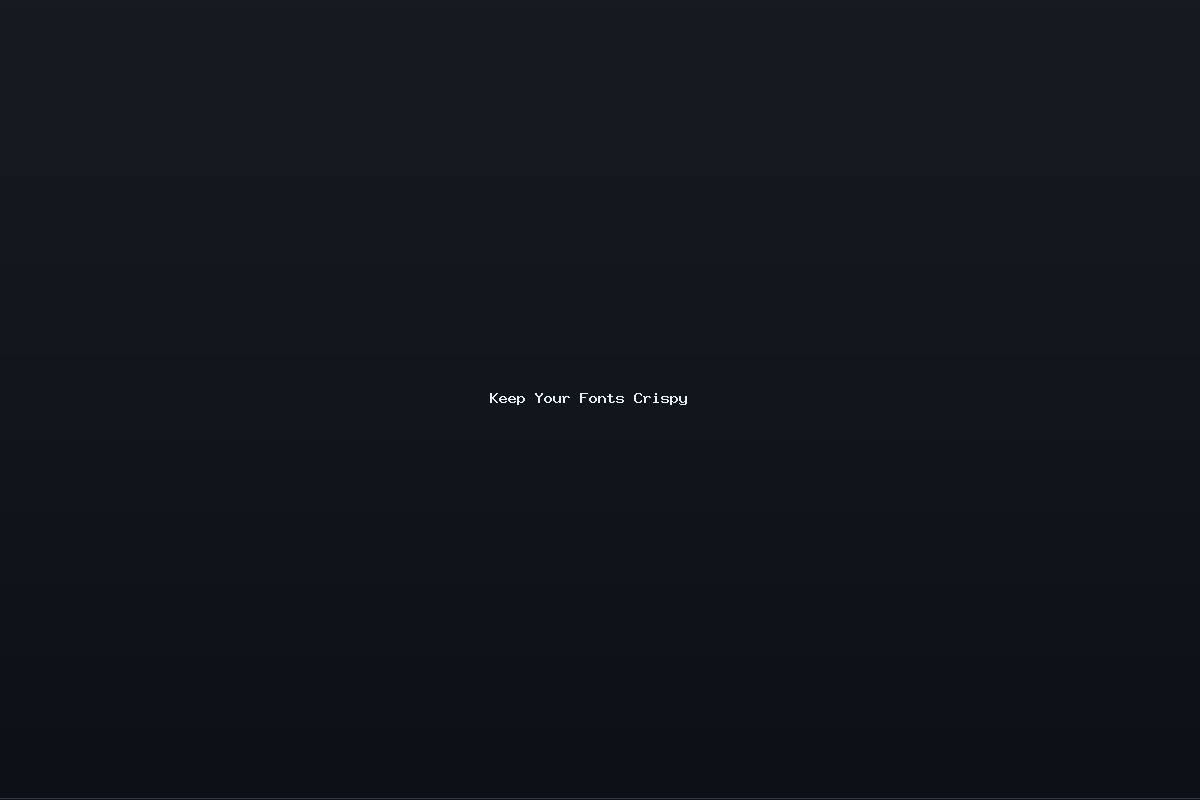
Typography and Readability on Your Site
When a visitor lands on a page, the first thing they notice is how the words appear on the screen. If the fonts are small, blurred, or lose definition against the background, the entire browsing experience takes a hit. On a 13‑inch laptop with a 800 × 600 resolution, for example, a font size that looks fine on a larger display can shrink to a point where the letters no longer form clean shapes. This is especially problematic for customers with vision issues, which can lead to frustration and ultimately discourage a sale.
One common symptom of poor typography is when text seems to “fade” or “feather.” This usually occurs when the font weight is too light or the rendering engine struggles to anti‑alias on low‑resolution screens. Browsers like Internet Explorer 5.0, which many users still run on older hardware, often handle text rendering poorly. Even if a font is sharp on a modern browser, it may appear jagged or smudged on an older engine. The bottom two lines of a page can be especially vulnerable, as they sit near the edge where anti‑aliasing is weakest. In these areas the letters may lose their distinct edges, turning a crisp “T” into a blur that looks more like a “t.”
Contrast plays a pivotal role in readability. A dark background with light text works well, but if the text color is too close to the background hue, the words may slip into the background and become invisible. The same happens when using earth tones such as taupe, grey, or brown on a black background. The subtle differences between these shades can be swallowed by the darkness, making the text feel washed out. Switching the background of the footer to a light slate or charcoal grey can create a subtle yet powerful contrast that brings the text back to life without sacrificing the overall aesthetic.
To solve these typography issues, start with a base font size of at least 14 px for body text and 16 px for headings. Use a font family that offers clear, round characters and a moderate weight, like Arial, Helvetica, or Georgia. Avoid thin or decorative fonts for the main copy. When you set a larger line height - roughly 1.5 times the font size - you give readers breathing room, which helps the eye track each line. Adding a subtle text shadow or a slight border around low‑contrast text can also help the letters stand out, especially on older browsers.
Finally, test your pages on multiple devices and browsers. Use responsive design techniques to ensure the text scales correctly on phones, tablets, and laptops. By paying close attention to these details, you’ll give every visitor a clean, crisp reading experience, which is the first step toward building trust and driving conversions.
Using a “slate” background for content areas, as seen on the item description pages, is an excellent example of this principle. The grey tone offers just enough contrast to make the text sharp while remaining understated enough not to clash with the product imagery. Replicating this look across the news, company, and info pages will provide consistency and improve readability. Additionally, incorporating a thin border or subtle drop shadow around tables can help the sizing chart stand out, making the numbers instantly legible.
When re‑designing the color scheme, consider accessibility. Tools like the WebAIM Contrast Checker can help ensure your text meets WCAG standards for color contrast. A simple tweak - such as changing the text on the footer from a muted brown to a crisp white - can instantly improve legibility. Likewise, adjusting the email input field and question box to match the color of the main CTA buttons can reinforce visual hierarchy and guide the user toward action.
Navigation, Consistency, and User Feedback
Even the most beautiful typography and color scheme can be undermined by inconsistencies in layout and navigation. A user who encounters different styles across pages will feel disoriented. For instance, the “shop” section contains a noticeable inconsistency: on the Bombshell and Signature pages, item names are not bolded like they are on other product pages. This subtle deviation disrupts the visual rhythm and makes the titles appear less important.